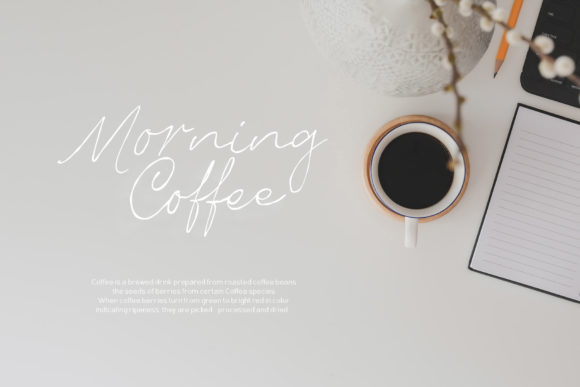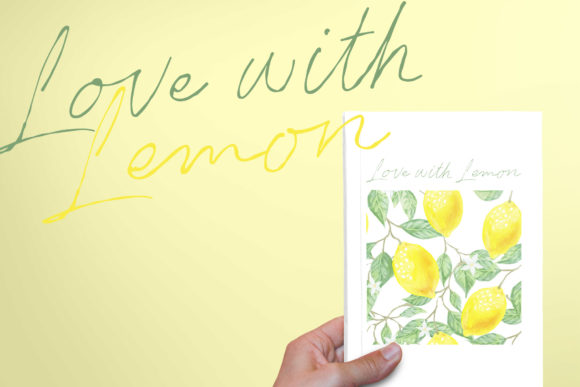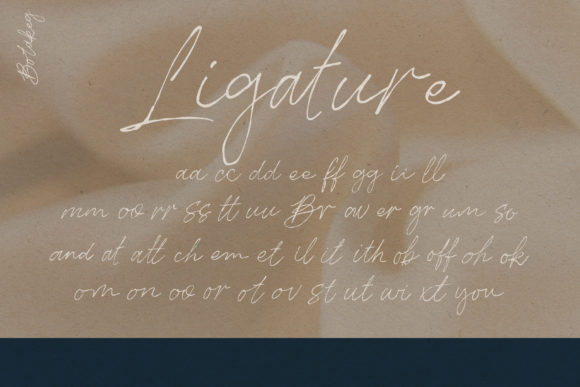
About Botakeg Font
Botakeg is a graceful and one-of-a-kind handwritten font that exudes elegance and charm. With its delicate strokes and unique features, Botakeg stands out as a truly distinctive typeface that will elevate your designs to new heights. This font is not only visually stunning but also offers practical benefits through its PUA encoding, providing easy access to an array of glyphs and swashes, enabling you to unleash your creativity without constraints.
The beauty of Botakeg lies in its intricate details. The varying baseline gives each character a sense of movement and flow, evoking a feeling of grace and sophistication. The smooth lines and flawless curves enhance the overall aesthetic, making this font a sight to behold. Whether used in large titles or subtle accents, Botakeg captivates the eye and adds a touch of refinement to any project.
Its exquisite glyphs and stunning alternates offer a plethora of design possibilities. You can experiment with different letterforms to find the perfect combination that aligns with your creative vision. Botakeg’s versatility ensures that it harmonizes seamlessly with various styles and themes, from formal invitations to artistic posters, from high-end branding to romantic wedding stationery.
The loveliness of Botakeg shines through in every aspect of your design. When crafting wedding invitations, this font sets the tone for a romantic and memorable celebration. For thank-you cards, it adds a personal touch that will leave a lasting impression on recipients. When featured on logos, it elevates your brand identity, making it truly memorable and recognizable.
The ease of access to glyphs and swashes with PUA encoding unlocks endless design potential. Embrace your creative freedom and explore the vast array of artistic possibilities that Botakeg offers. Let your imagination run wild as you incorporate unique flourishes and embellishments to create truly spectacular designs that speak to your audience.
Whether used in print or digital media, Botakeg consistently delivers elegance and distinction. From captivating social media posts to stunning blog headers, from delicate product packaging to eye-catching brochures, this font stands out in any setting, leaving a lasting impression on your viewers.
In conclusion, Botakeg is a delicate and distinct handwritten font that brings an exquisite touch to your designs. With PUA encoding for easy access to glyphs and swashes, it offers versatility and creative freedom. Its varying baseline, smooth lines, gorgeous glyphs, and stunning alternates make Botakeg a true gem in the world of typography. Fall in love with its lovely style and unleash your creativity to create spectacular designs that captivate and enchant your audience. Embrace Botakeg and let it elevate your projects to new levels of elegance and sophistication!